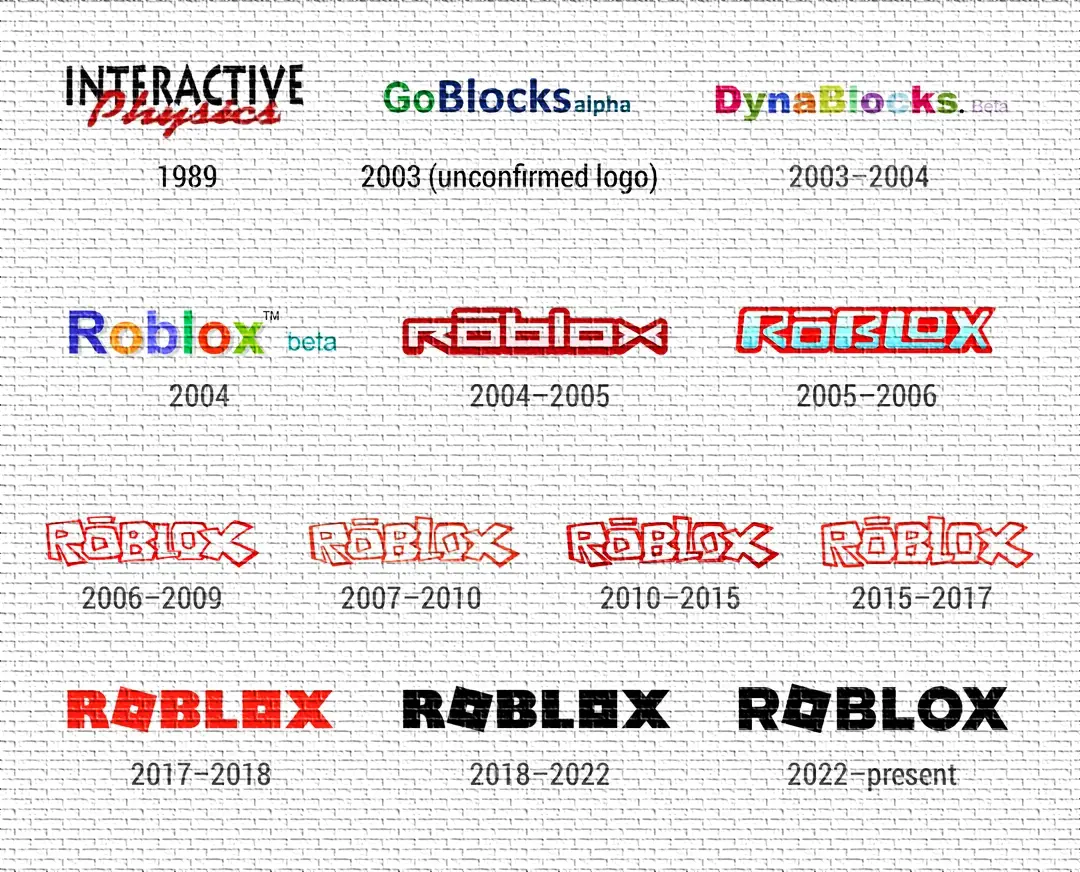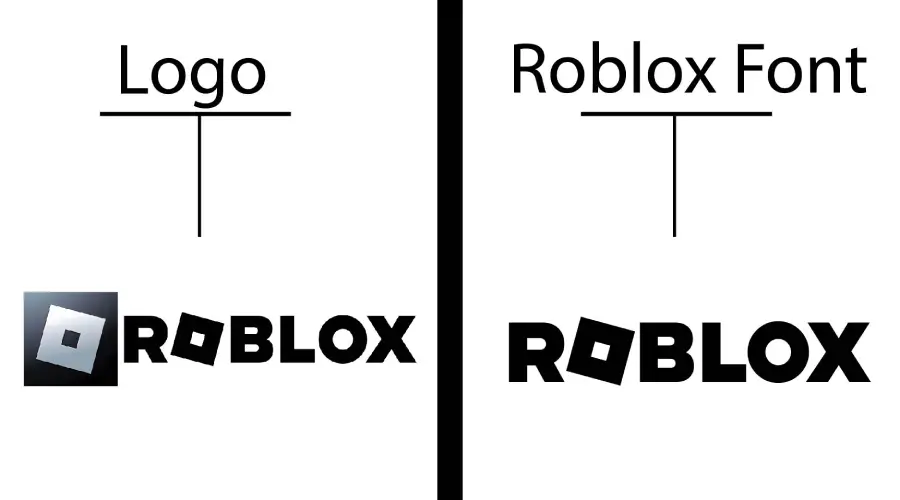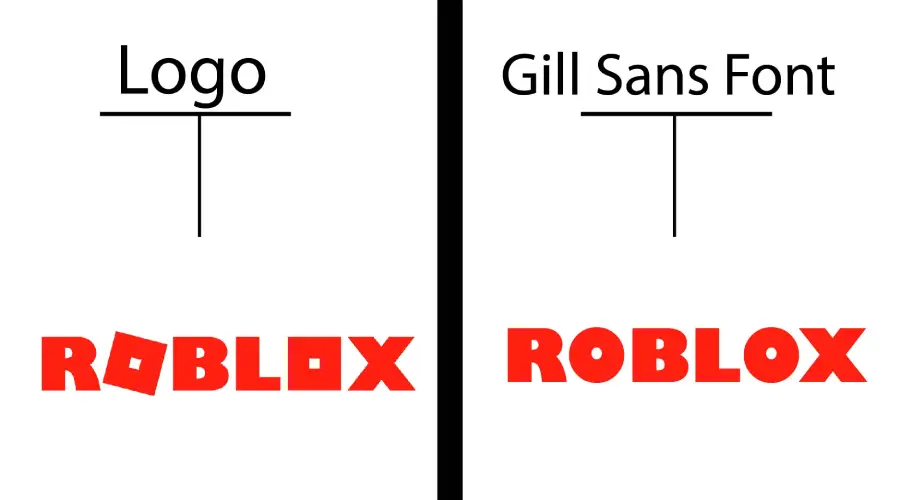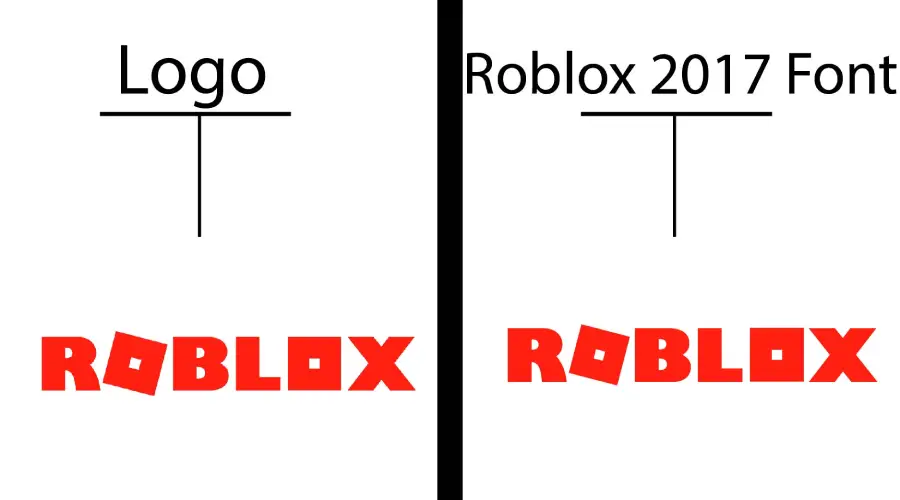
The Roblox font, with its distinctive blocky appearance, is a key element that contributes to the platform’s visual appeal and brand recognition.
Different Forms or Versions
Evolution of the Roblox logo from predecessors to present, showcasing font changes
Current Roblox Font (2022 – Present)
The current logo of Roblox, in use from 2022 till now, employs a font that shares its name – the Roblox font. This font, characterized by its modern and geometric design, perfectly encapsulates the spirit of creativity and innovation that Roblox stands for. Its bold and blocky style is instantly recognizable, making it a powerful tool in the brand’s visual identity.
Previous Roblox Font (2018 – 2022)
Between 2018 and 2022, the Roblox logo used the Gill Sans Ultra Bold font. Designed by Eric Gill, this font is known for its clean and modern look. In the Roblox logo, the “O” character was customized, adding a unique touch to the logo and making it stand out from other gaming platforms.
Fan-Made Roblox Font (2017)
In 2017, a fan-made font named Roblox 2017 was created, inspired by the Roblox logo. This font, while not officially associated with Roblox, captures the essence of the Roblox logo with its blocky and bold design. It’s a testament to the impact of Roblox on its community, inspiring fans to create and share their own interpretations of the logo.
The Versatility of the Font
The Roblox font, with its unique and distinctive design, is not just for gamers. Its bold and blocky style makes it a versatile choice for various design projects, from social media graphics and branding elements to posters and event promotions. Whether you’re a designer, a gamer, or just someone who appreciates unique typography, the Roblox font has something to offer.
The Roblox font, with its distinctive style and strong association with the popular gaming platform, is more than just a typeface. It’s a symbol of creativity, innovation, and community. Whether you’re a Roblox player, a designer, or just someone who appreciates unique typography, the Roblox font has something to offer.